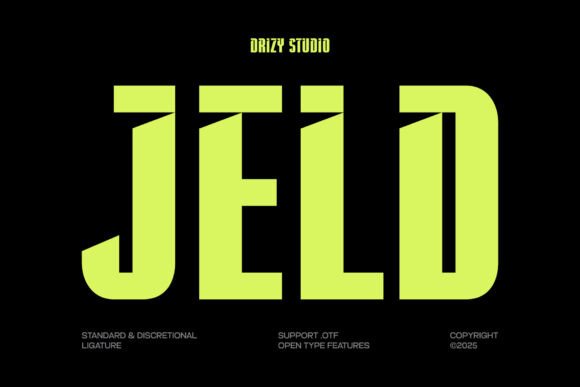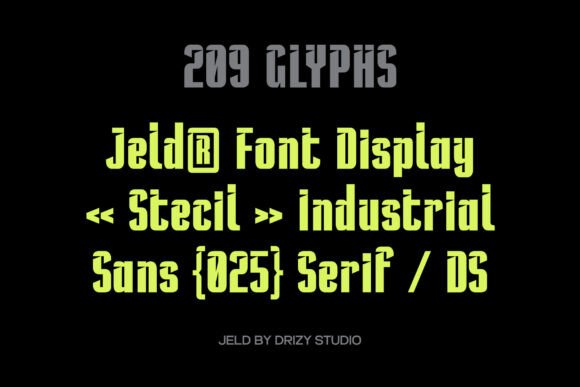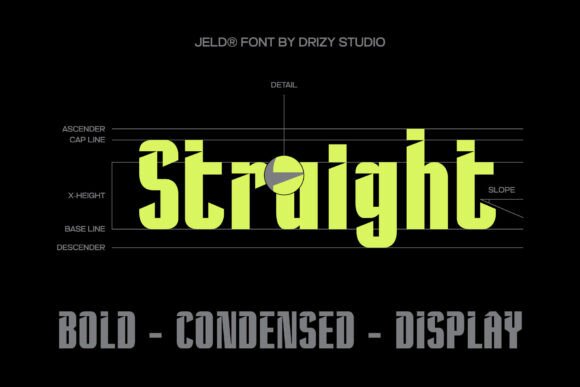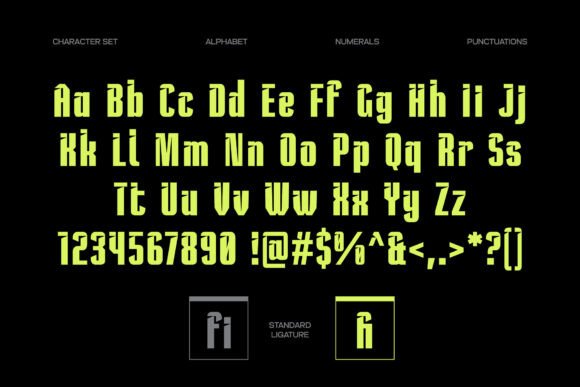
Jeld Font: A Bold Sans Serif for Modern Logo Design & Headlines
About the Jeld Font
Discover the charm of Jeld Font. This font is a perfect blend of modern aesthetics and classic appeal. Jeld is a sleek and powerful modern sans serif font, designed to bring energy and boldness to any project. With its clean lines, tight spacing, and contemporary sans-serif style, Jeld exudes speed, strength, and precision perfect for sports. Its sharp edges and strong letterforms make it a go-to choice for projects that demand impact while maintaining readability.
Jeld thrives in headlines, logos, and short-form text for projects requiring a bold, impactful statement. It’s ideal for branding materials, posters, and packaging where a strong visual presence is crucial. However, its condensed nature and sharp angles make it less suitable for body copy or UI elements requiring high readability over extended lengths.
The font’s core personality is energetic and modern, conveying speed and precision. Brands targeting active, performance-oriented audiences will find it particularly effective.
Pairing Jeld with a clean, neutral sans-serif like Lato for body text creates a balanced and professional feel. For a more playful contrast, consider a rounded geometric sans-serif such as Circular. A subtle serif like Merriweather can add a touch of sophistication if a more formal tone is needed.
Jeld Font Usage Examples
Jeld Font Example